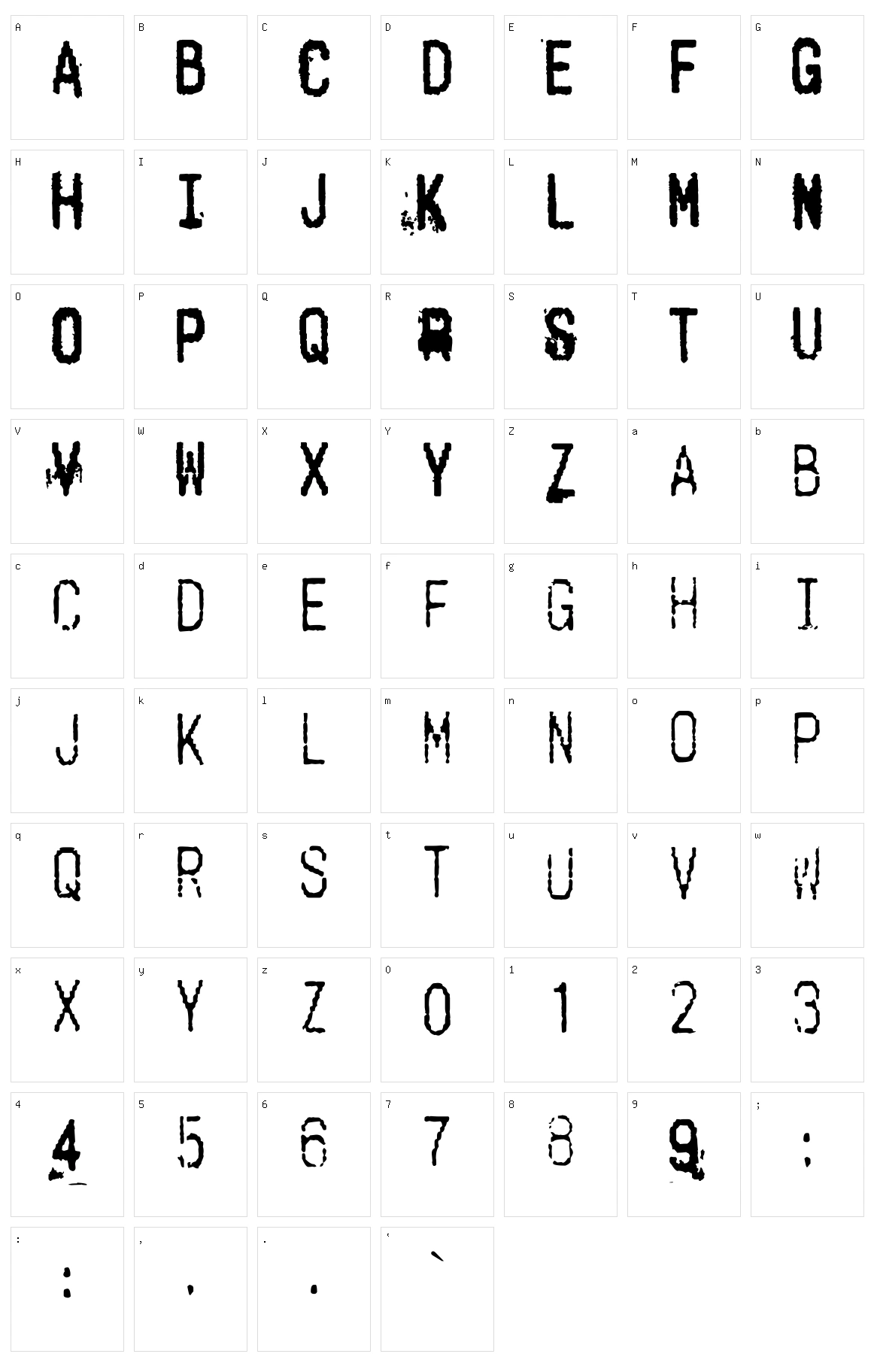
The free font Cashier is carefully designed by imagex, showcasing a thoughtful balance of creativity and usability and falls under the Destroy font style. When you download the ZIP file, it contains only 16.56 KB of font files, making it lightweight and quick to download. Please review the license details below to understand permitted usage and distribution rights. If license information is not available, we recommend using this font for personal projects only or contacting the author directly for commercial usage permissions.